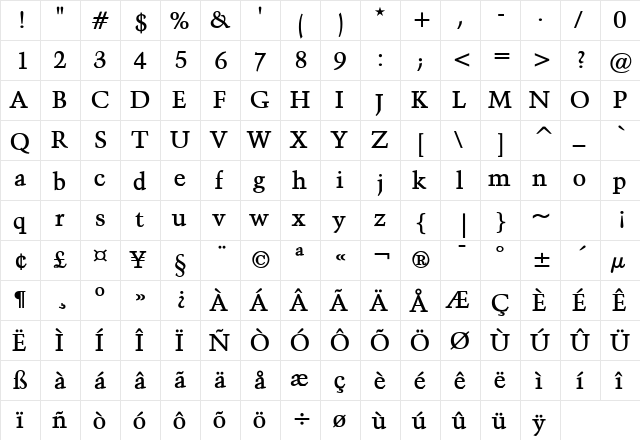
Congo Bold
Design Context for Congo Typeface
Congo offers clean, dependable letterforms without strong stylistic allegiance, making it a practical choice for designers who need flexibility. The heavy weight commands attention and anchors typographic hierarchies.